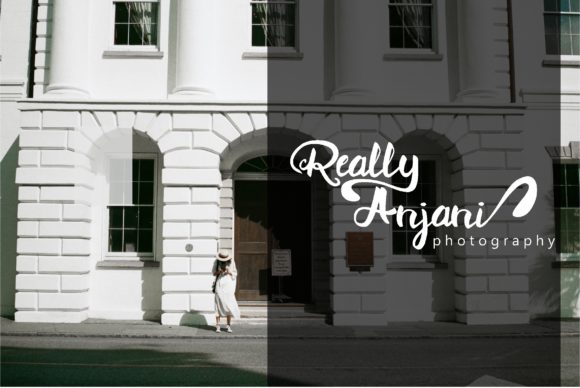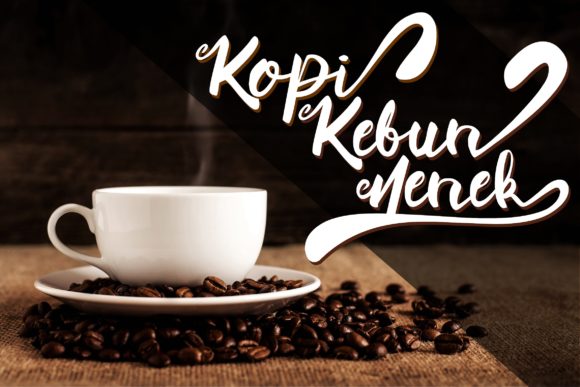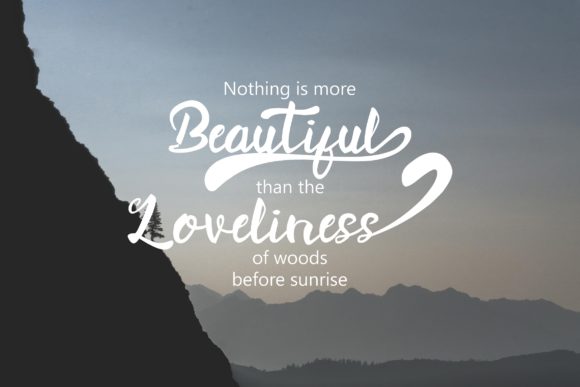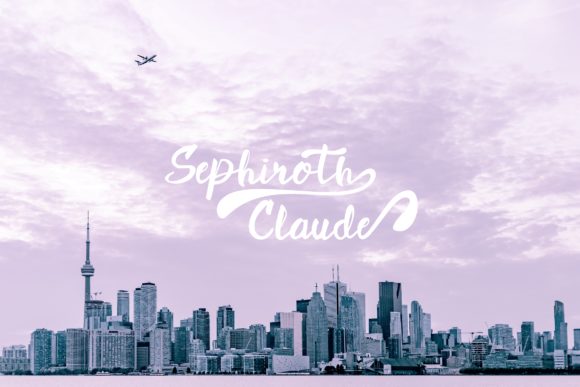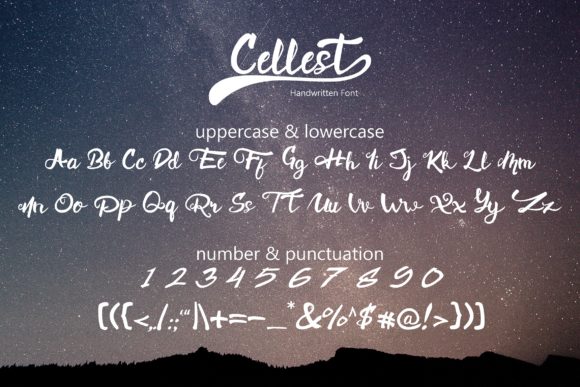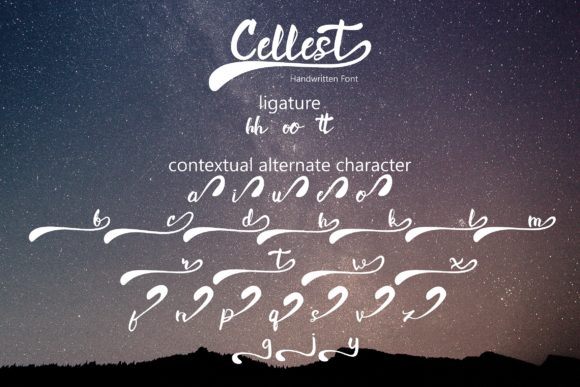
Introducing Cellest Font: The Sweet and Fun Design Idea You Need
Are you tired of using the same old fonts in your design projects? Do you want to add a touch of uniqueness and playfulness to your creations? Look no further than Cellest Font, a sweet and fun design idea that will turn any project into a true standout. In this article, we’ll explore the ins and outs of Cellest Font, and how it can inspire your next design masterpiece.
What is Cellest Font?
Cellest Font is a modern, hand-drawn font that exudes a sense of whimsy and fun. Its unique style is perfect for designers and crafters looking to add a personal touch to their projects. With its rounded edges and irregular shapes, Cellest Font has a distinctly handmade feel that sets it apart from more traditional fonts.
The Inspiration Behind Cellest Font
The inspiration behind Cellest Font comes from the world of art and design, where creativity and self-expression know no bounds. The font’s creators wanted to capture the essence of childhood wonder and curiosity, and bottle it up into a design that’s both sweet and sophisticated. The result is a font that’s equal parts playful and elegant, making it perfect for a wide range of design projects.
Key Features of Cellest Font
So what makes Cellest Font so special? Here are just a few of its key features:
- Unique and playful design: Cellest Font has a one-of-a-kind style that’s sure to turn heads.
- Hand-drawn with love: Each letter has been carefully crafted to give the font a personal, handmade feel.
- Perfect for creative projects: Whether you’re working on a branding project, a craft, or a digital design, Cellest Font is the perfect choice.
- Easy to use: With its clean and simple design, Cellest Font is easy to read and works well in a variety of contexts.
How to Use Cellest Font in Your Design Projects
So how can you use Cellest Font in your design projects? Here are a few ideas to get you started:
- Branding and logos: Use Cellest Font to create a unique and memorable brand identity.
- Digital designs: Add a touch of whimsy to your social media graphics, blog posts, and website designs.
- Crafts and DIY projects: Use Cellest Font to add a personal touch to your handmade crafts, such as journals, cards, and gift tags.
- Signage and display graphics: Make a statement with Cellest Font on your store signs, banners, and display graphics.
Tips for Getting the Most Out of Cellest Font
Here are a few tips for getting the most out of Cellest Font:
- Experiment with different colors and textures: Add depth and interest to your designs by experimenting with different colors and textures.
- Mix and match with other fonts: Combine Cellest Font with other fonts to create a unique and visually appealing design.
- Don’t be afraid to get creative: Cellest Font is all about having fun and being creative, so don’t be afraid to try new things and push the boundaries of design.
| Font Name | Cellest Font |
| Author | MOONALIZART |
In conclusion, Cellest Font is a sweet and fun design idea that’s perfect for designers and crafters looking to add a touch of uniqueness to their projects. With its playful style and hand-drawn charm, Cellest Font is sure to inspire your next design masterpiece. So why not give it a try and see what amazing creations you can come up with?